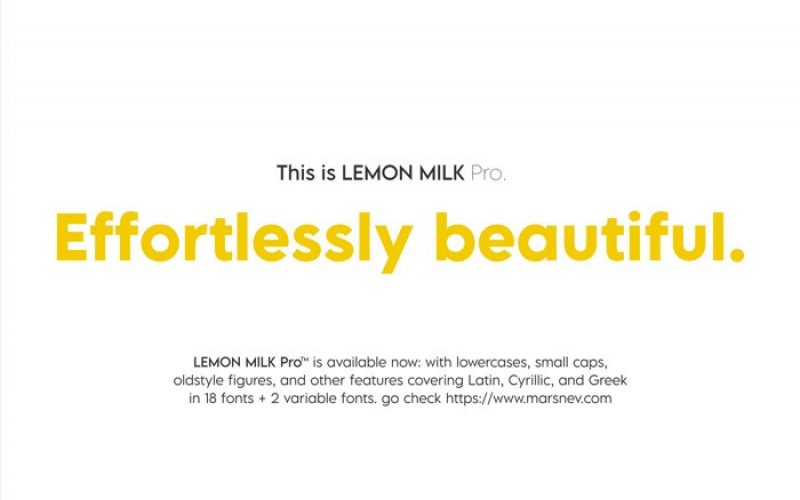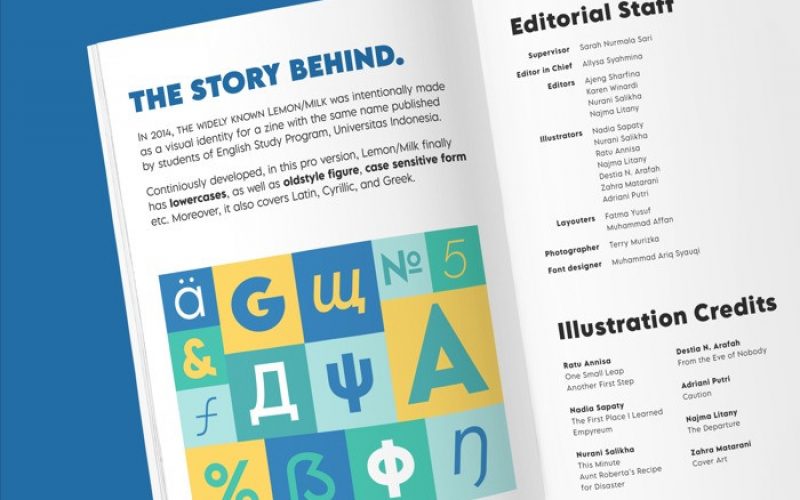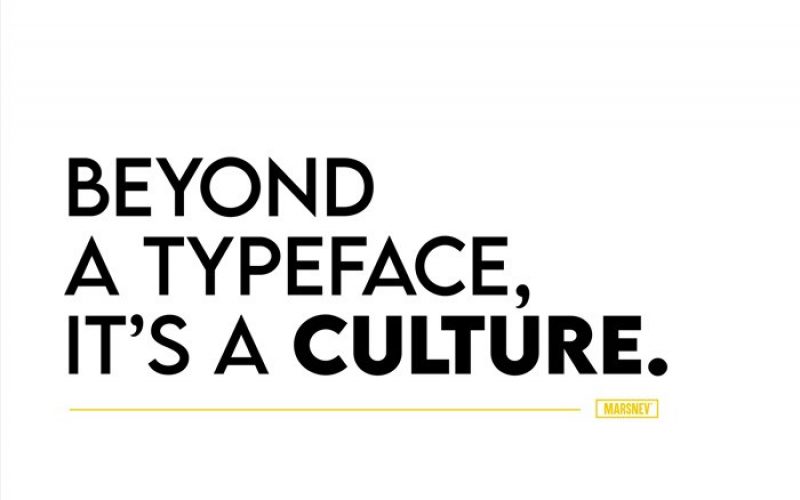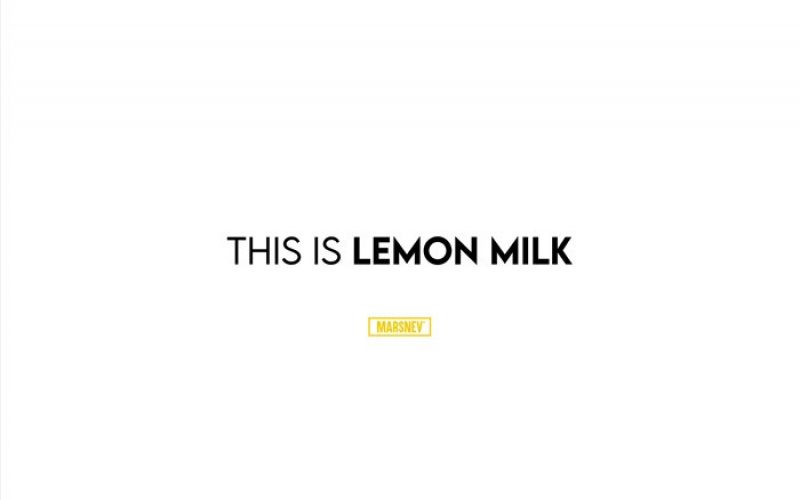
Lemon Milk Sans Serif Font
First created in 2014, for me, Lemon Milk portrays well how I develop as a type designer. This modern geometric sans serif typeface was intentionally made as a visual identity for a student zine of English Studies Universitas Indonesia with the same name. While the feedbacks were so good, I tried to explore further.